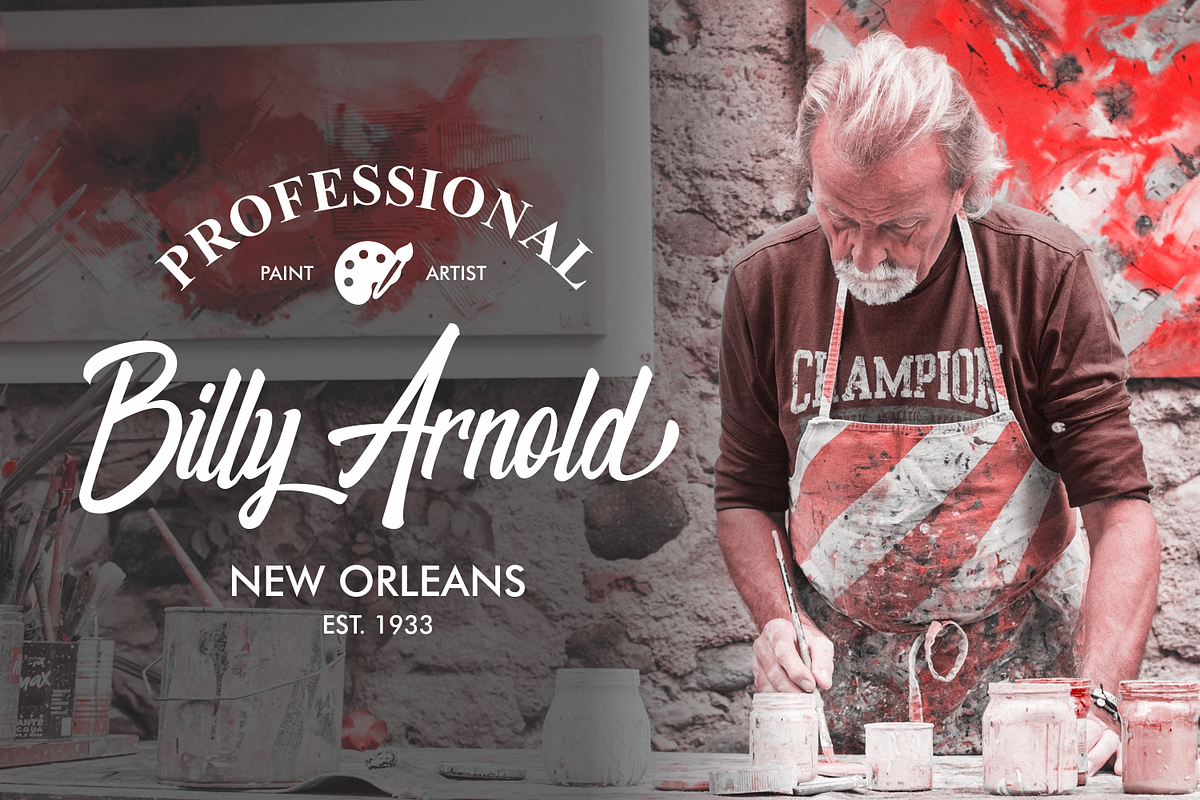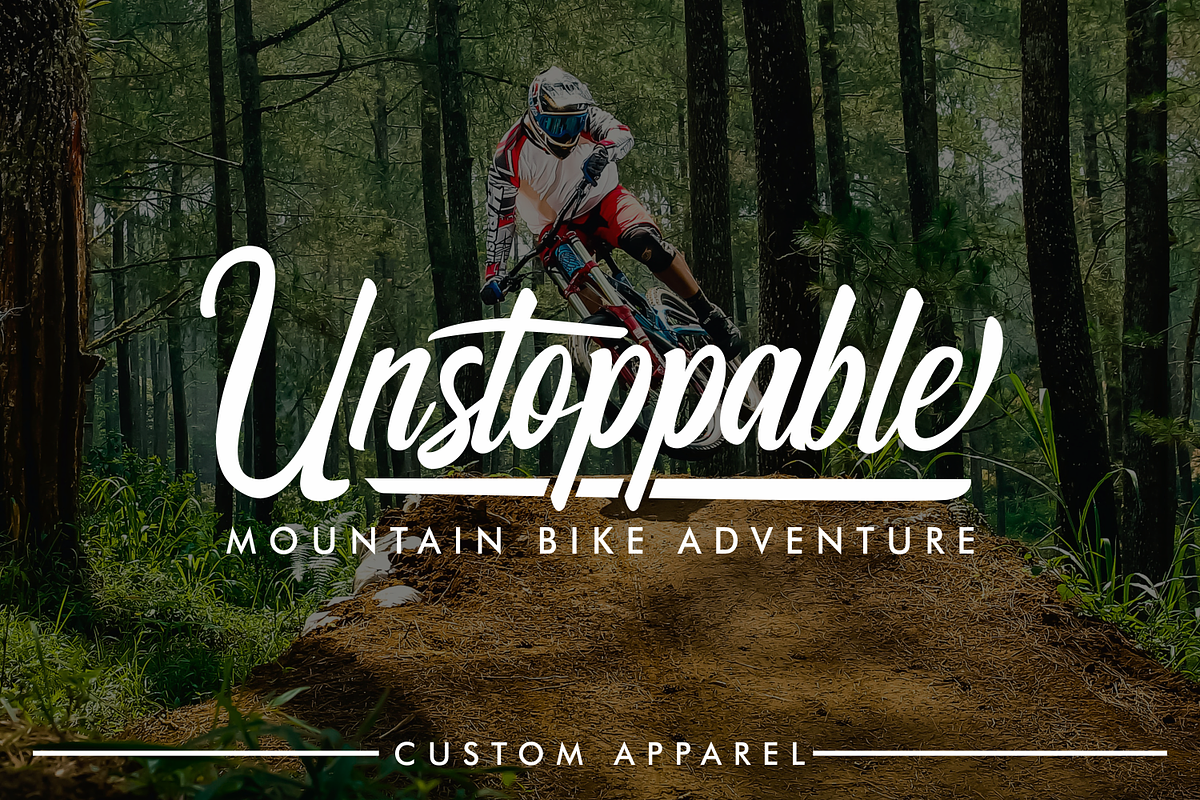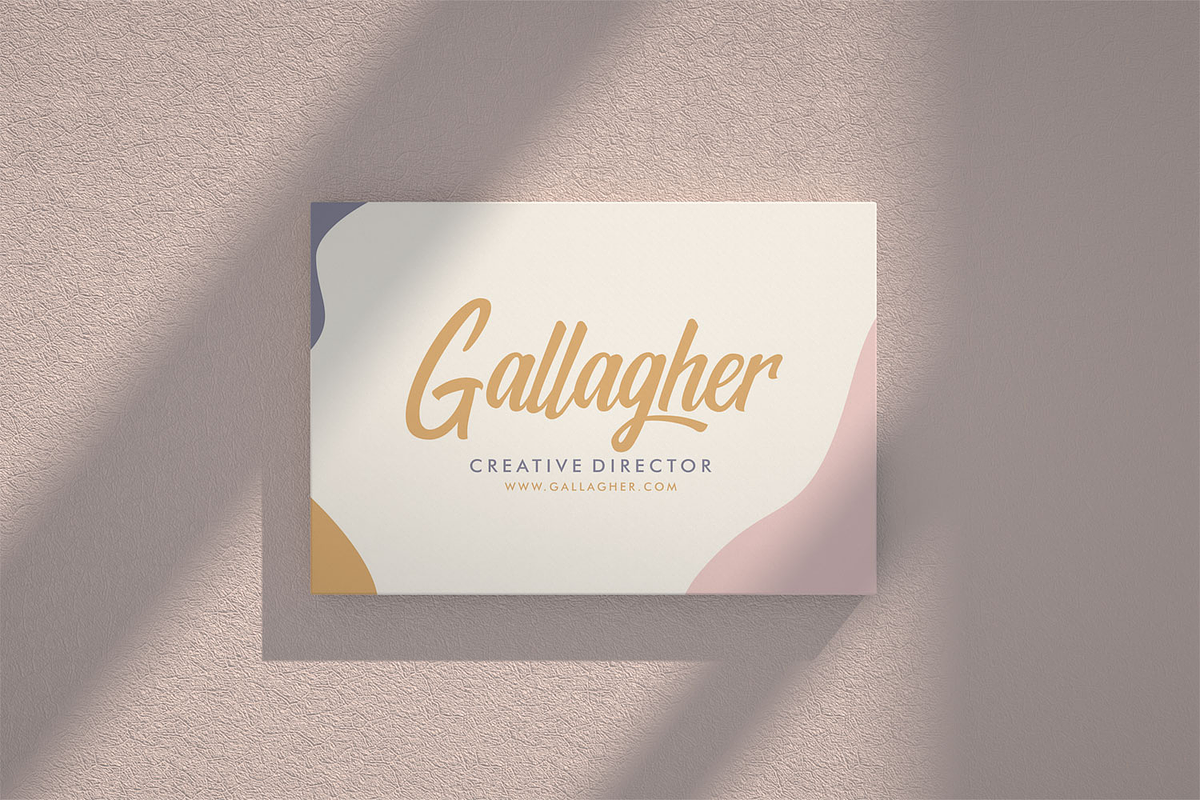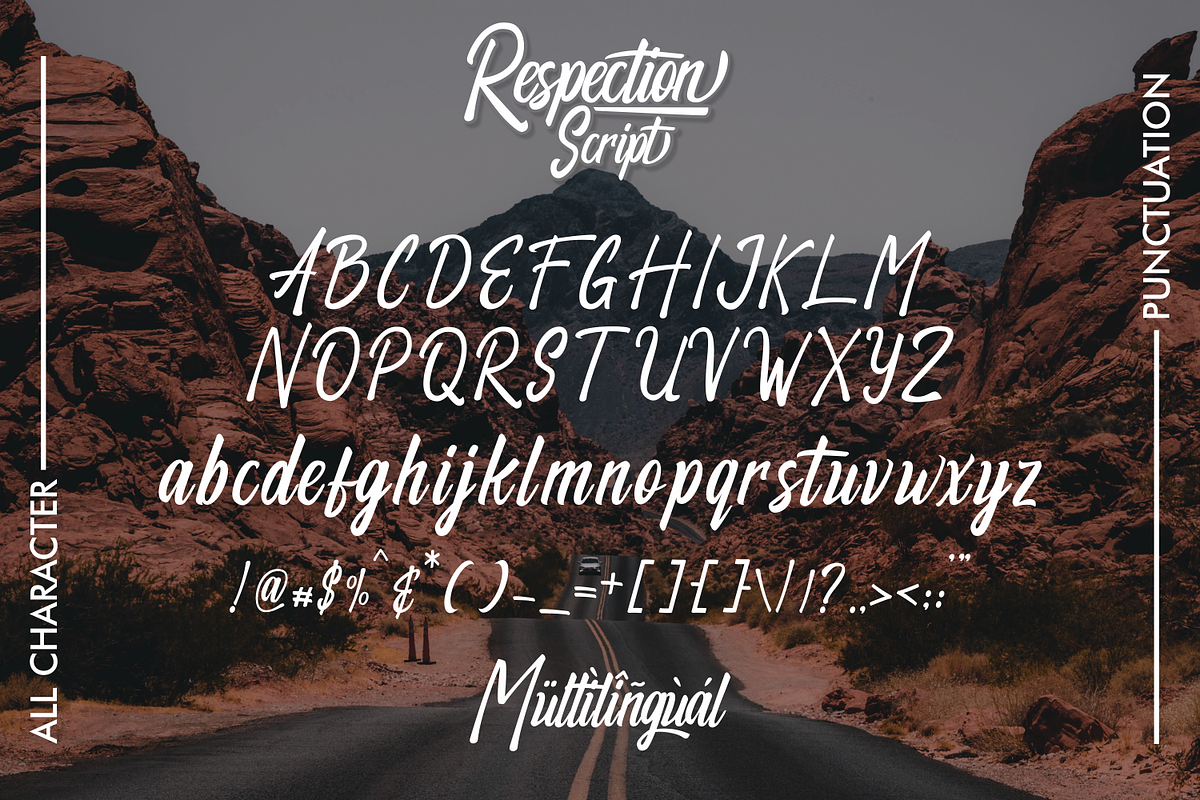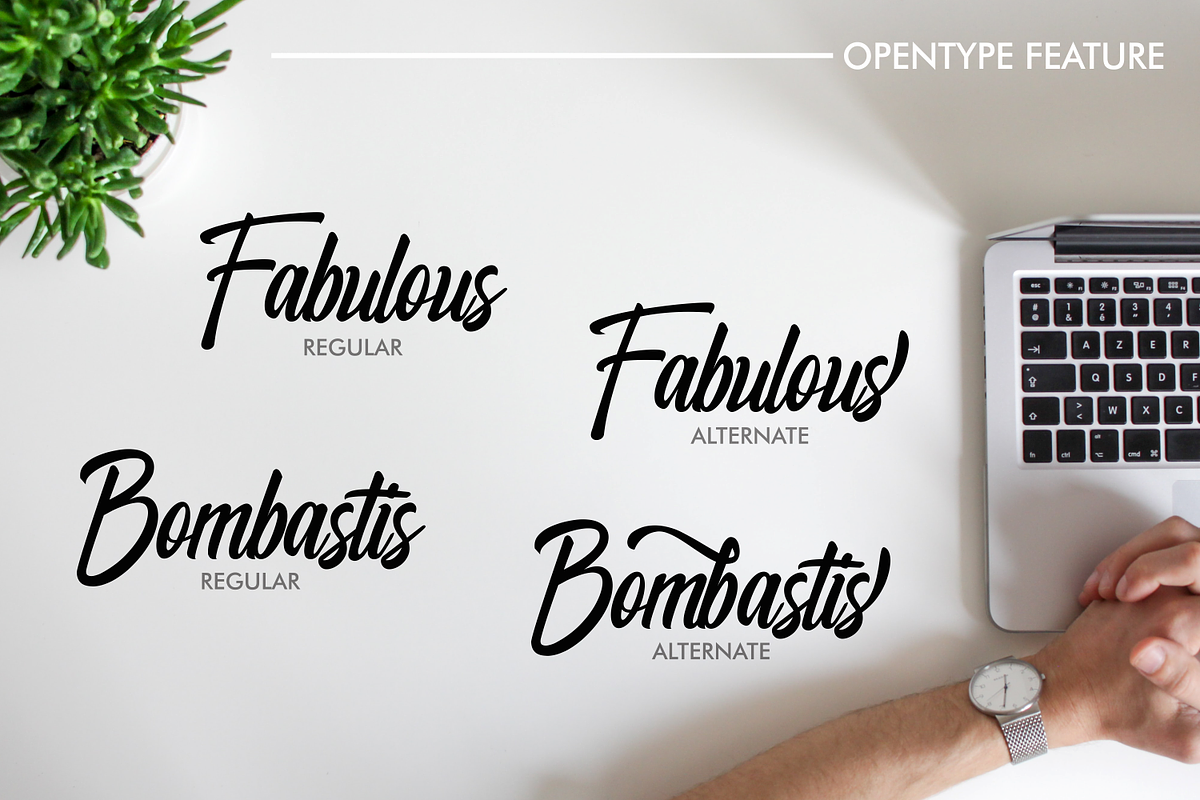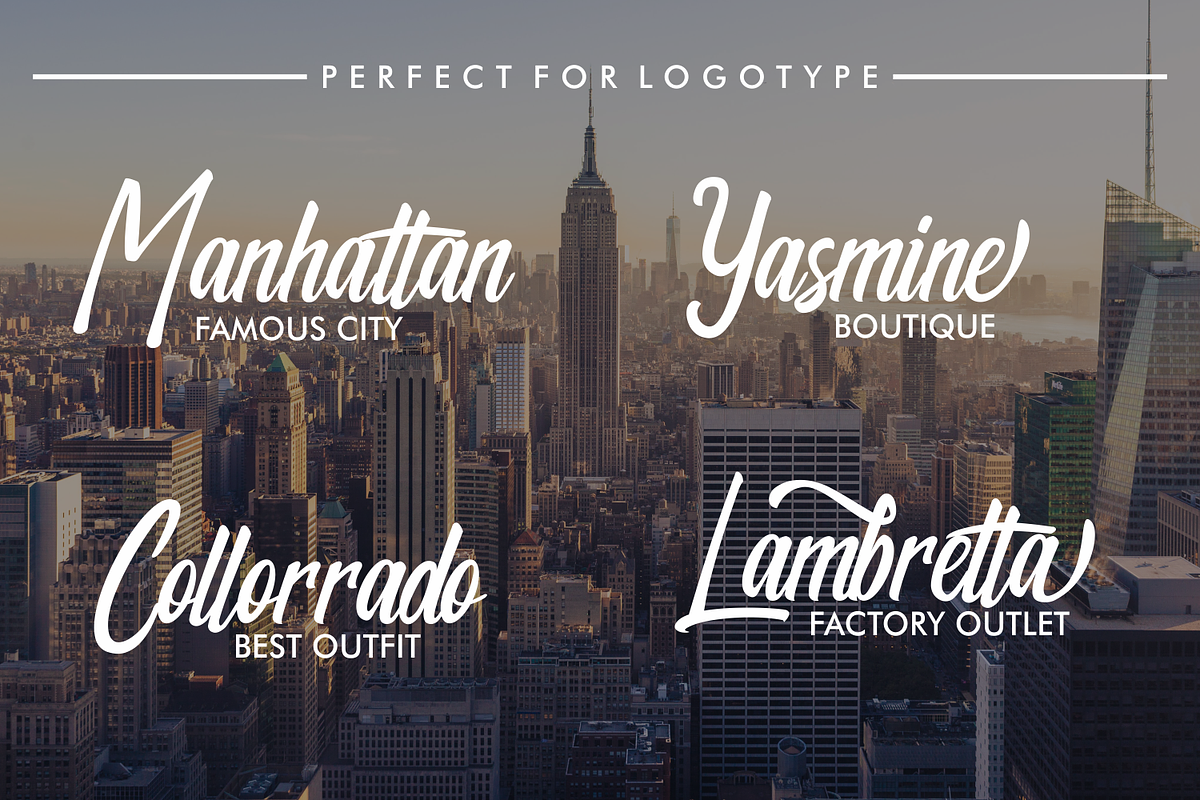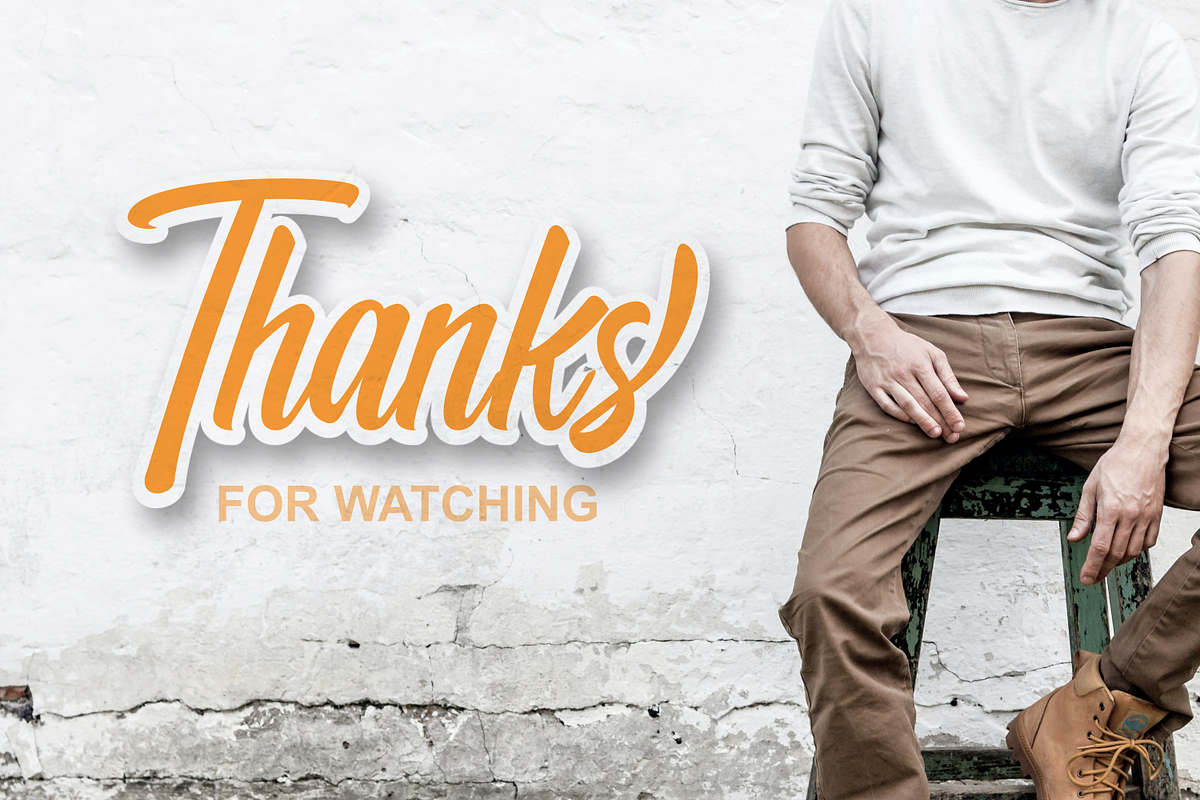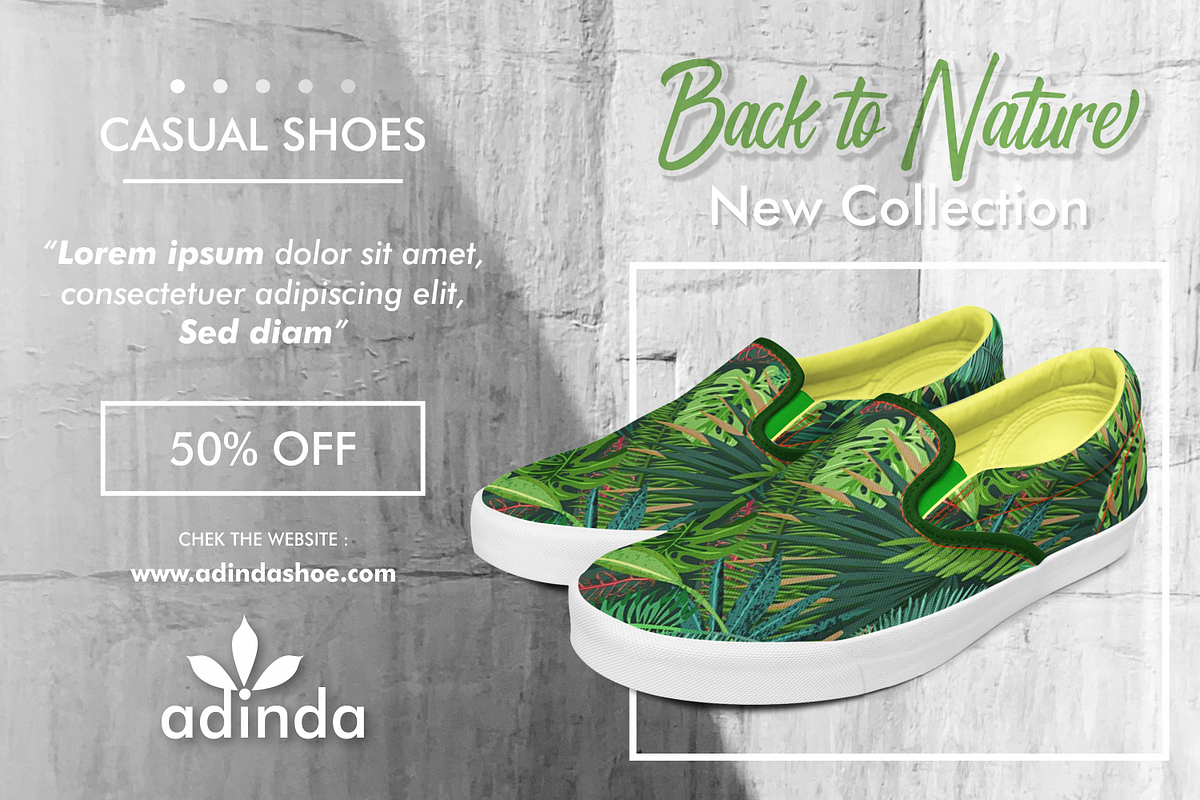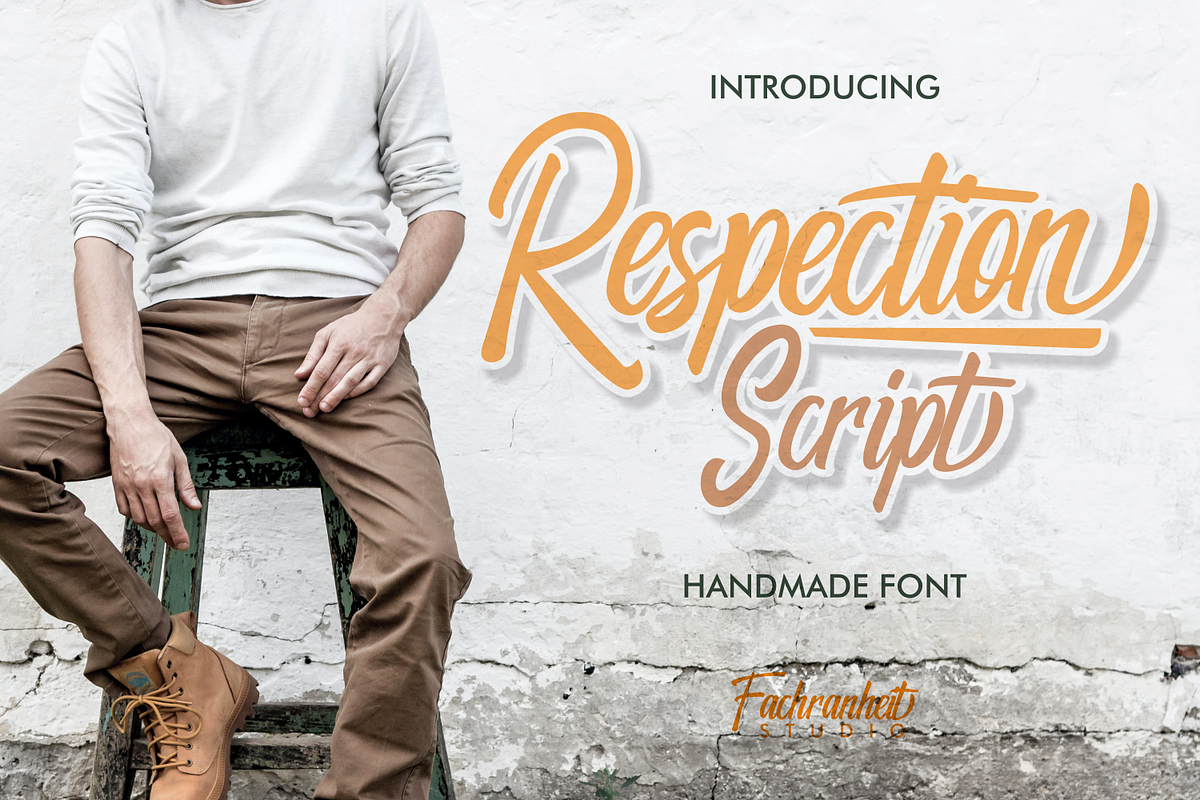
Respection Script
Hello, This is The Respection Script !
The Respection Script is a handmade script that comes from hand scratches to get natural writing. With the main style of the hand-lettering script, it will be very interesting if it is added with a variety of Alternates and also Stylistic Sets that are very suitable. The Respection is very suitable for use in various media such as; packaging, logos, labels, posters, shirt designs, wisdom quotes, bulletins, typography, and many other media, especially with retro or vintage look.
- Stylistic Alternates,